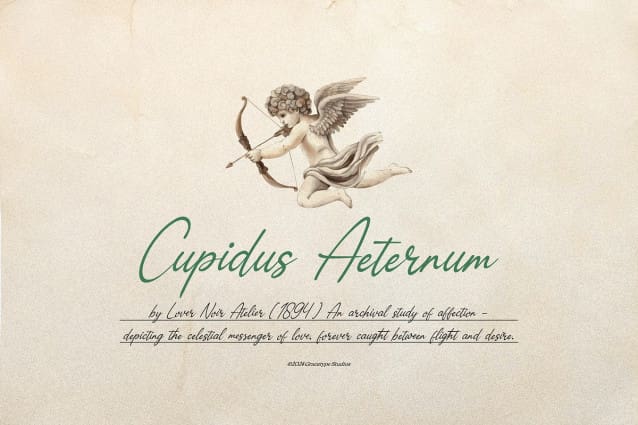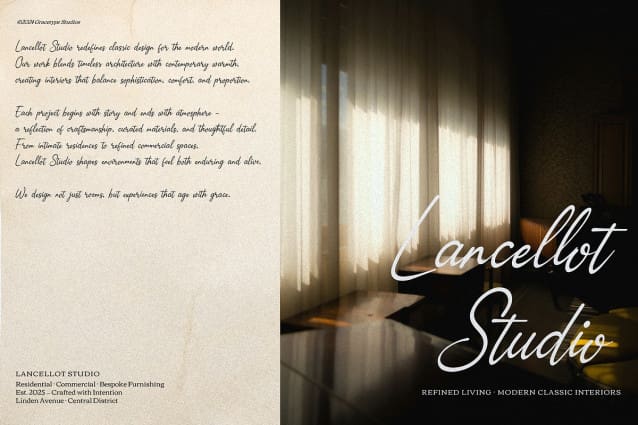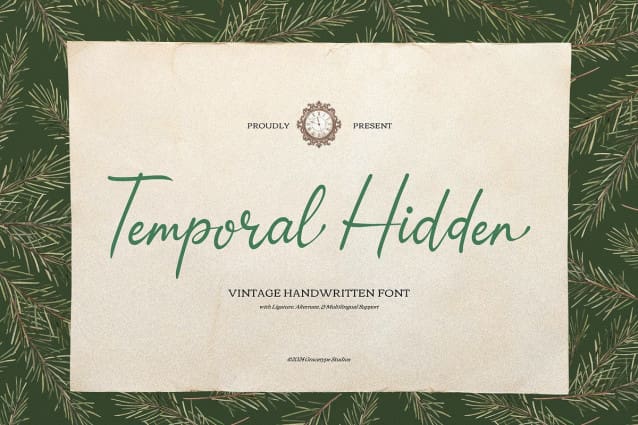
Temporal Hidden Font
Temporal Hidden Font – Vintage Handwritten, from Gracetypestudio, suitable for any projects such as: logos, branding projects, homeware designs, product packaging, mugs, quotes, posters, shopping bags, t-shirts, book covers, name card, invitation cards, greeting cards, label, photography, watermark, special events, and all your other lovely projects that need a Vintage taste.